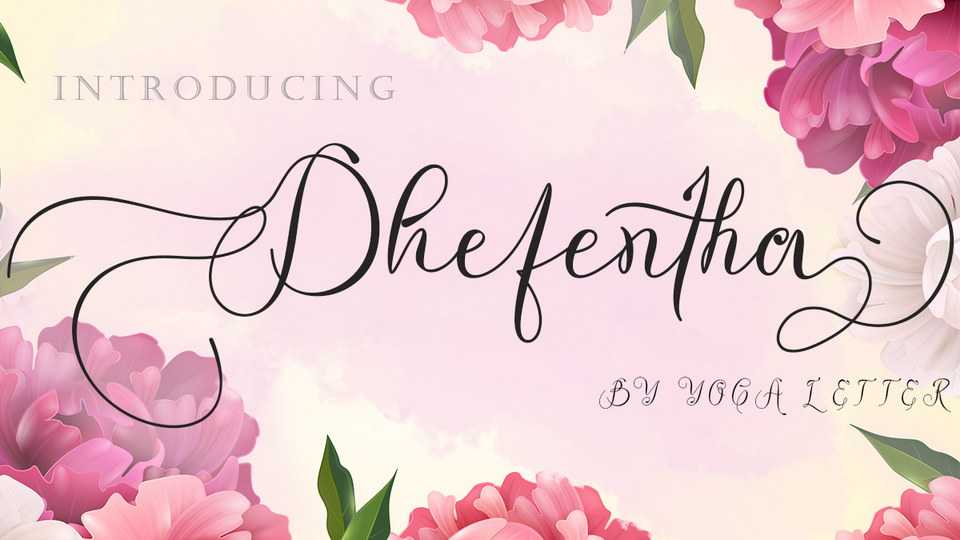
Download Dhefentha font, a high quality script typeface that is made with a subtle touch, resulting in a very beautiful, elegant font suitable for all types of your work.